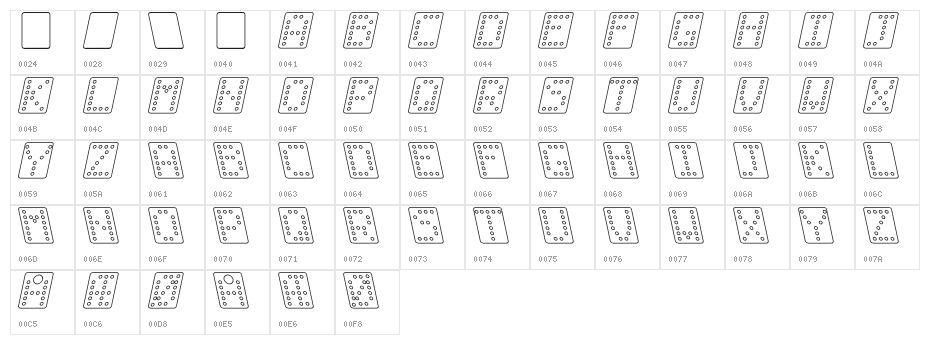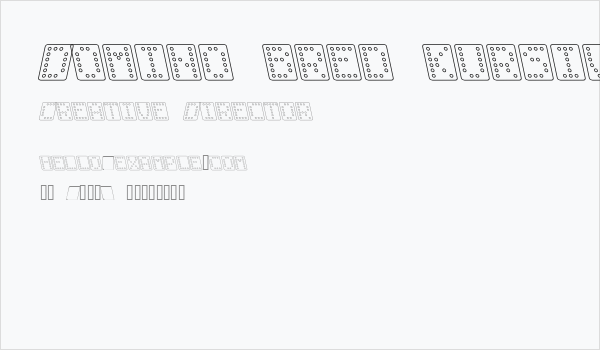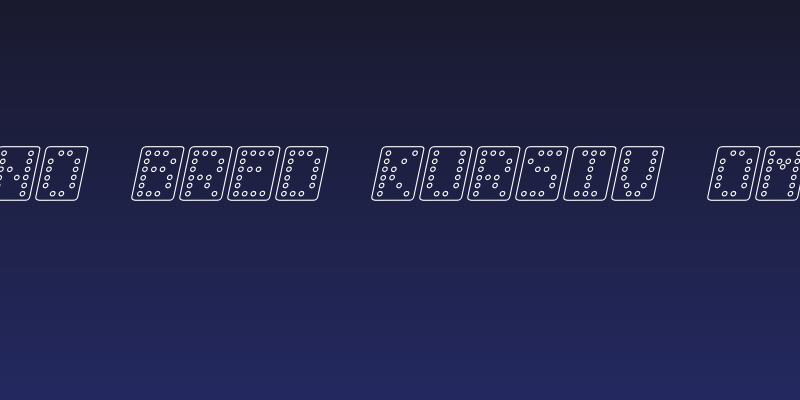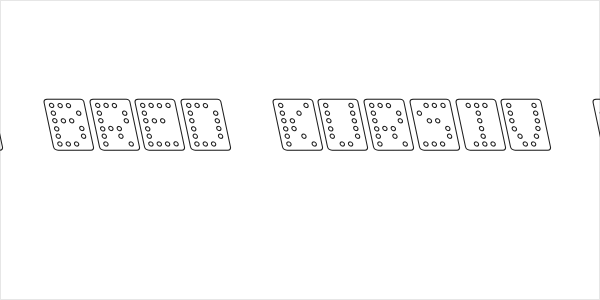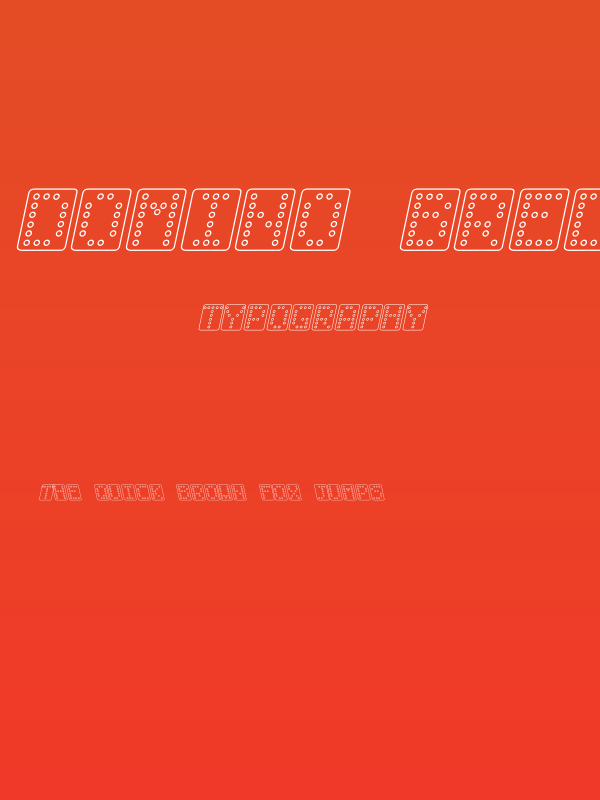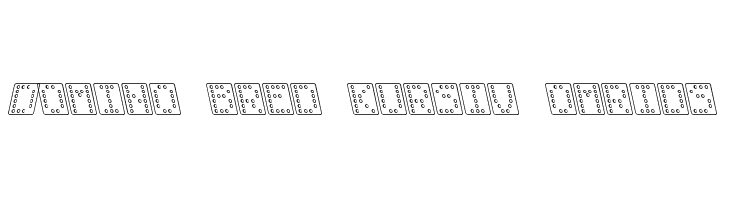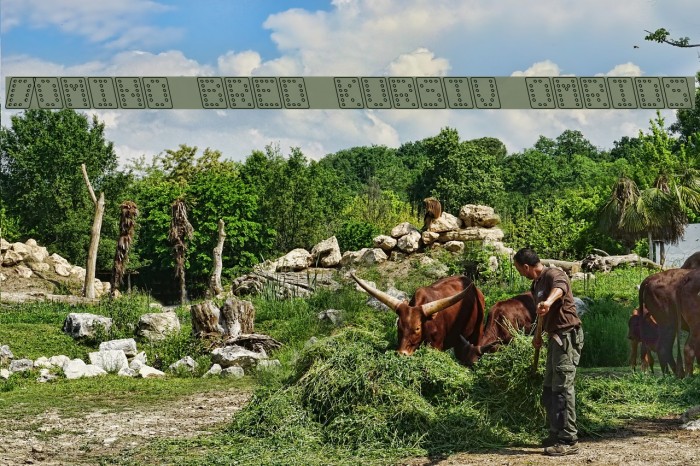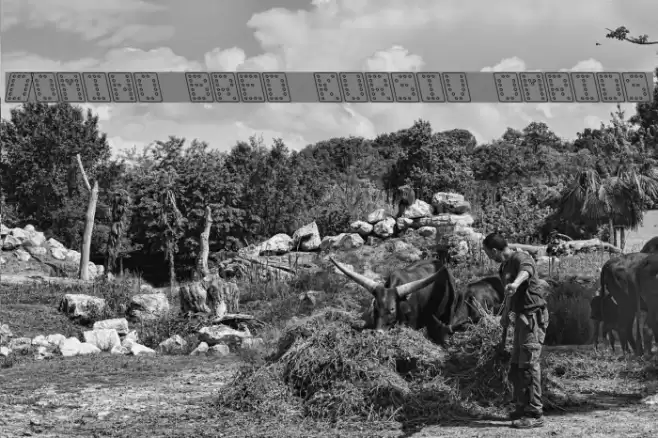
Domino bred kursiv omrids Font
Domino bred kursiv omrids Description
This playful and unique font is designed to resemble domino tiles, with each character crafted to mimic the appearance of a domino piece. The letters and numbers are outlined with dots, capturing the essence of a domino set. The font has a tilted, italicized style, adding a dynamic and whimsical touch. The characters are evenly spaced, with a consistent width that maintains the domino theme. This font is perfect for creative projects that require a fun and engaging visual element, such as game-themed designs or playful branding.
| Use Case | Logos, Headlines, Creative Projects |
| Proposed Projects | Ideal for game-themed designs, playful branding, and creative projects. |